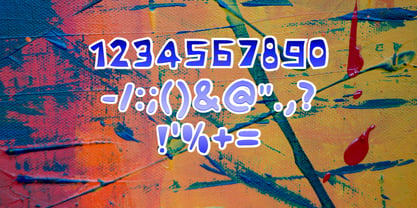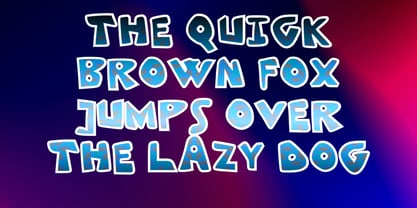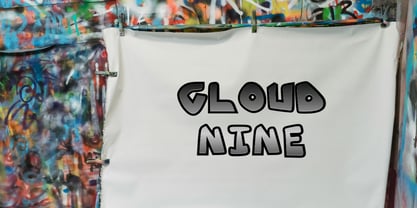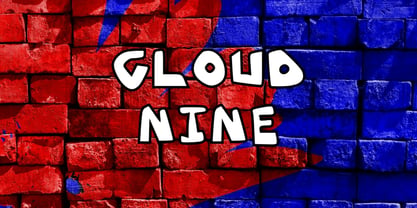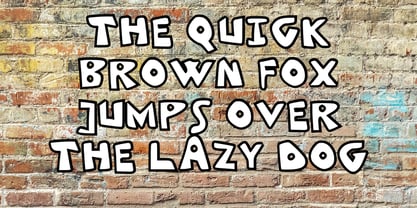
Cloud Nine
by Pyramind
The Cloud Nine Font Family was designed by Angela Topalova and published by Pyramind. Cloud Nine contains 1 styles. More about this family
Cloud Nine is a typeface designed to elevate words off the page, allowing them to drift effortlessly into the imagination. Soft yet confident, contemporary yet warmly human, Cloud Nine strikes a balance between clarity and charm, creating a refreshing yet familiar aesthetic. It embodies the typographic equivalent of a deep breath: open, airy, and full of potential. Crafted with smooth curves and thoughtfully controlled proportions, Cloud Nine features gently rounded forms that convey a sense of lightness without compromising structure. Each letterform is meticulously shaped to ensure excellent readability while maintaining a distinctive personality. The strokes flow naturally, avoiding harsh angles in favor of subtle transitions and harmonious contours, resulting in a design that feels approachable, optimistic, and modern. With its balanced x-height and clean construction, Cloud Nine is highly versatile across various applications. In headlines, it captures attention with quiet confidence, while in short paragraphs or branding statements, it remains legible and inviting. The rhythm between characters is steady and well-paced, providing a polished, cohesive appearance whether set large or small. Its even color and carefully spaced forms ensure consistency across both print and digital environments. What truly defines Cloud Nine is its emotional tone. The softness of its geometry conveys an understated friendliness, making it ideal for brands seeking authenticity and warmth. It steers clear of cold minimalism, instead offering a contemporary voice infused with subtle personality. The rounded terminals and open counters enhance the overall sense of clarity and approachability, making it particularly well-suited for lifestyle branding, beauty and wellness products, creative studios, packaging, social media graphics, and editorial layouts that require a modern yet gentle touch.
Designers: Angela Topalova
Current Foundry: Pyramind